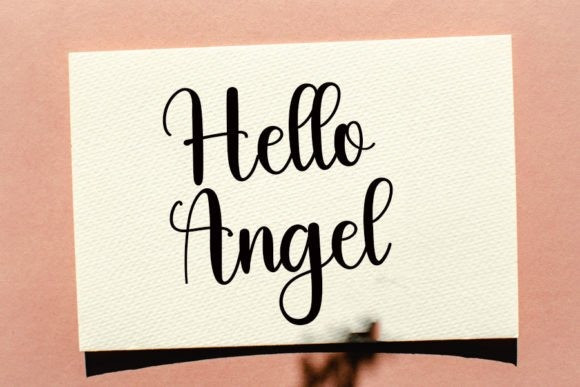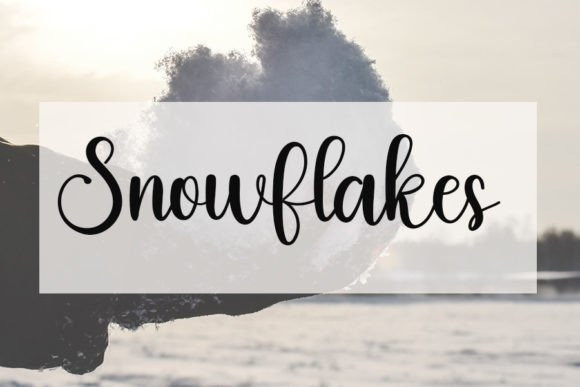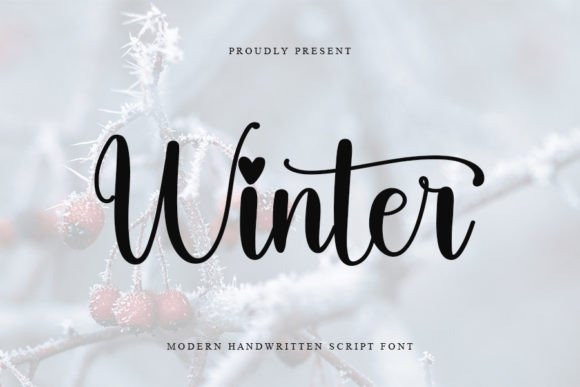
Winter Font
Winter Font is a modern handwritten typeface. It’s perfectly suitable for flyers, wedding invitation cards, logos, banners, birthday cards, YouTube, and thumbnails. Add this beautiful script font to each of your creative ideas, and notice how it makes them stand out!